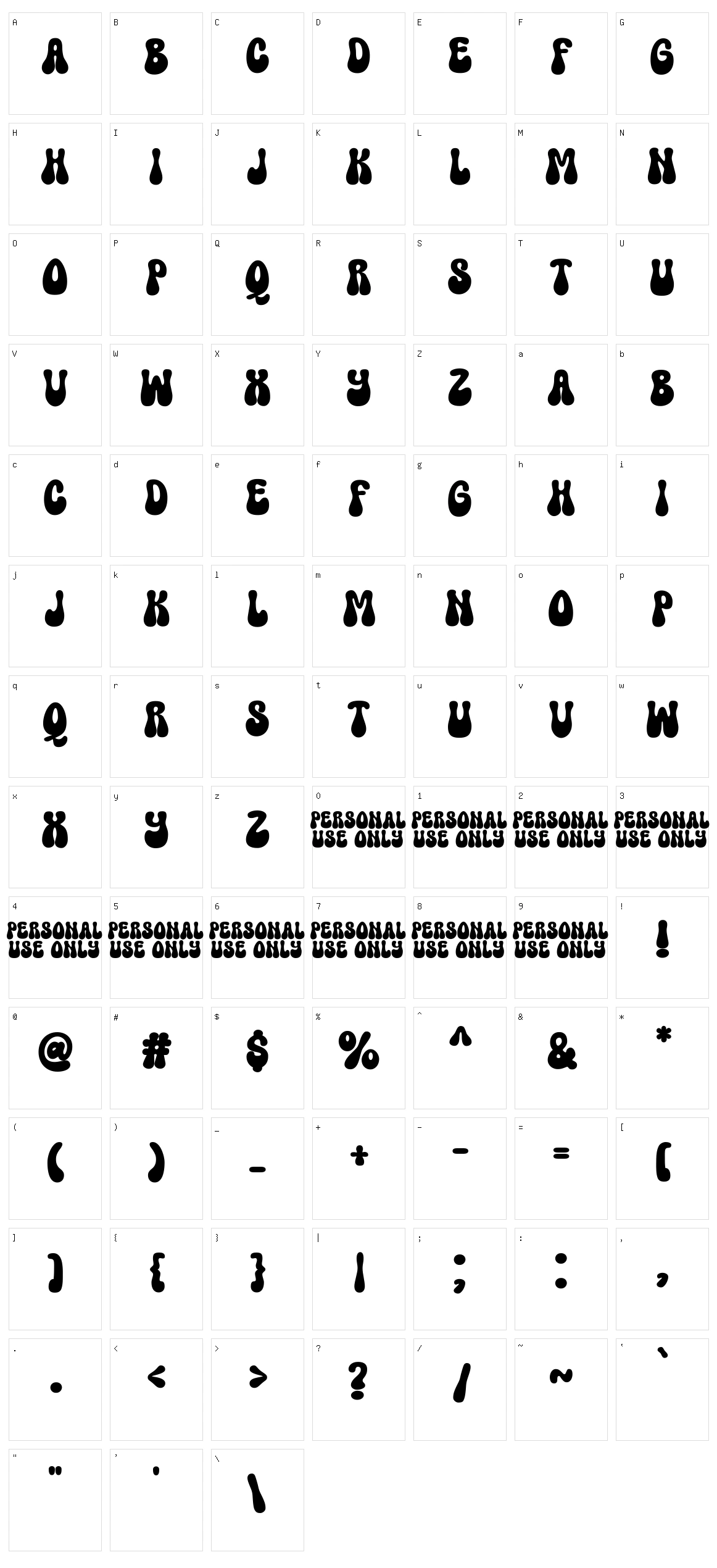
Super Summer is a groovy, retro, all-caps font that is perfect for adding a touch of fun and nostalgia to your designs. With its bold, rounded shapes and vintage-inspired flair, Super Summer is sure to catch the eye and make your message stand out. More